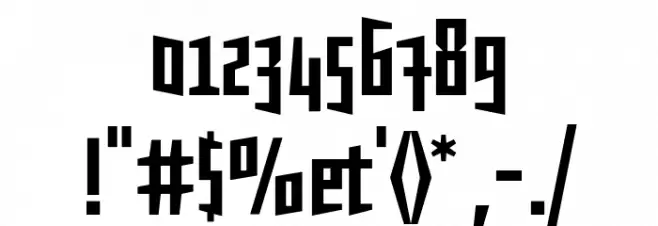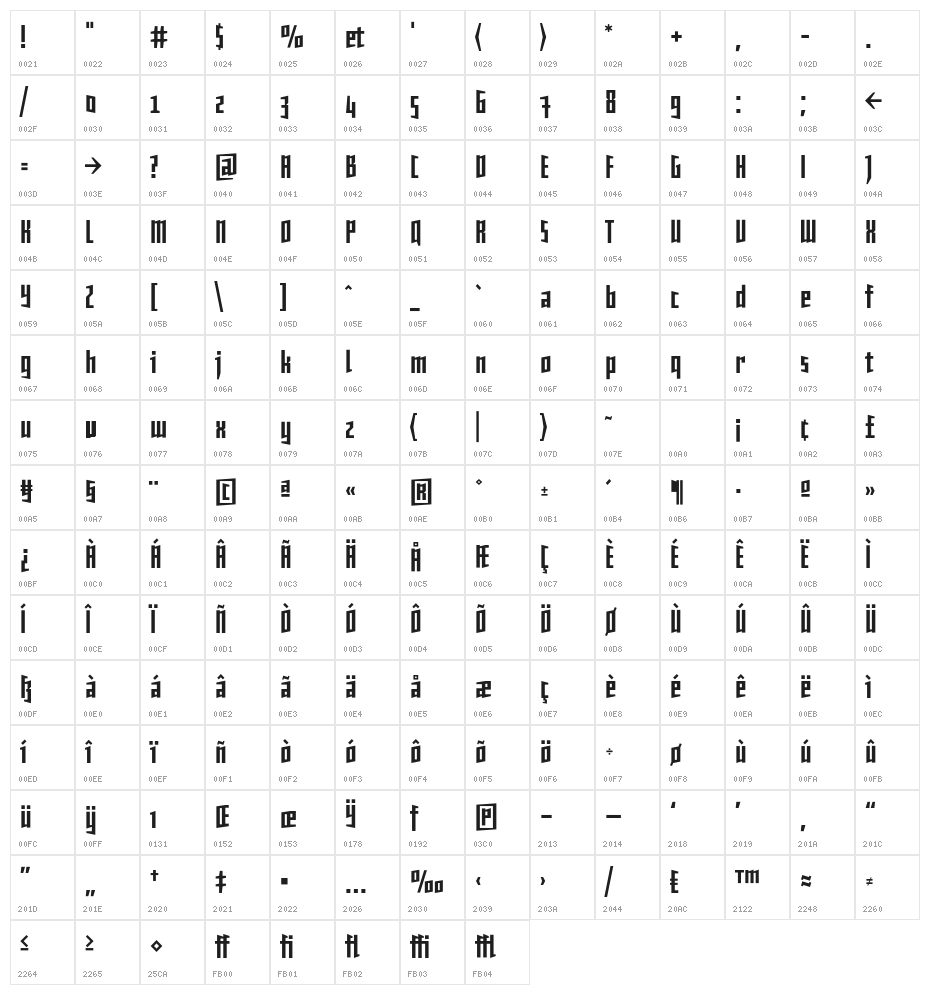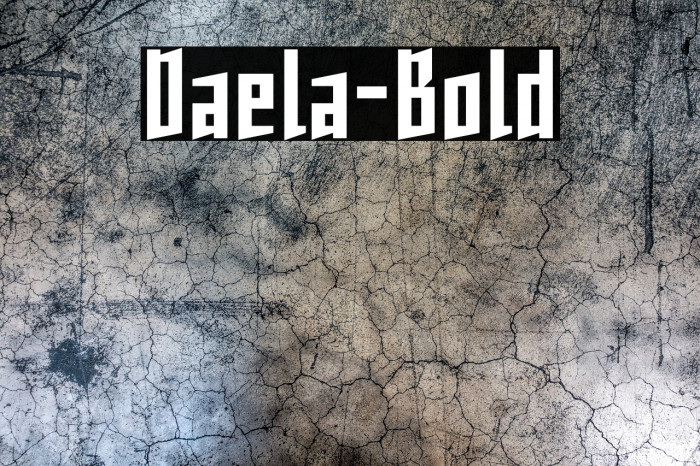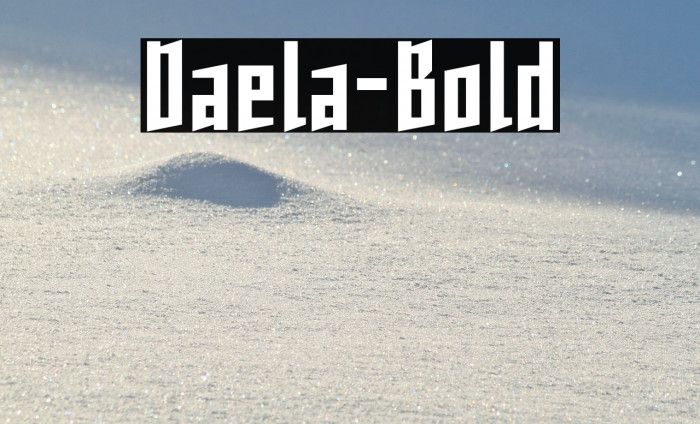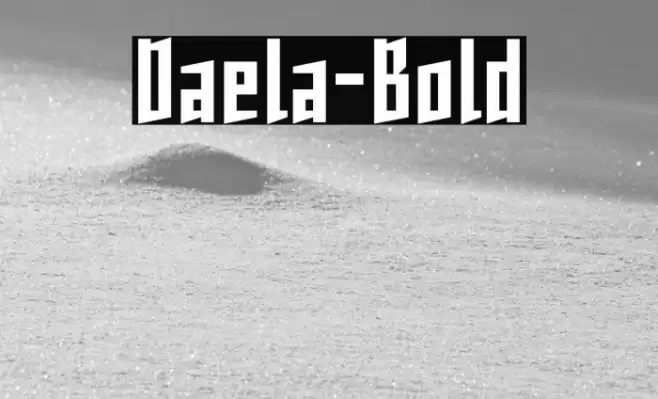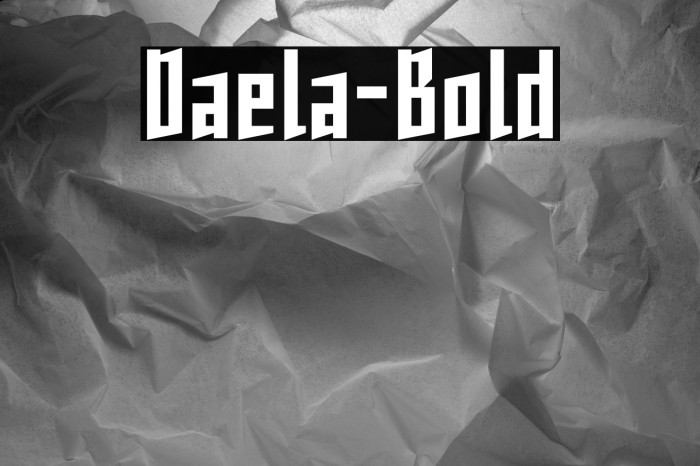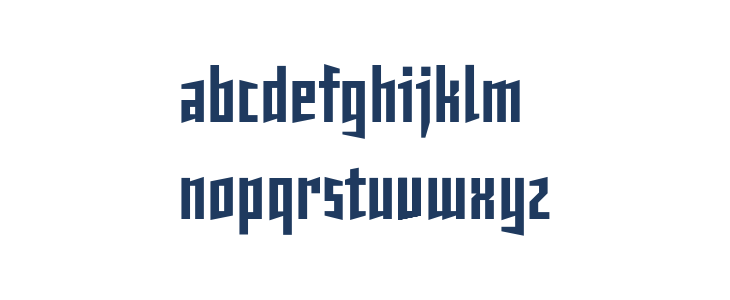
Daela-Bold Font
Daela-Bold Description
This font features a bold and angular design, characterized by sharp edges and a geometric structure. The uppercase letters are tall and commanding, while the lowercase letters maintain a consistent style with slightly less height. The numerals are distinct and align well with the overall aesthetic, providing a cohesive look. Special characters are crafted with the same attention to detail, ensuring they complement the alphabetic characters. The font's boldness and unique style make it stand out, ideal for projects that require a strong visual impact.
| Proposed Projects | Ideal for posters, logos, branding, and headlines that require a bold statement. |